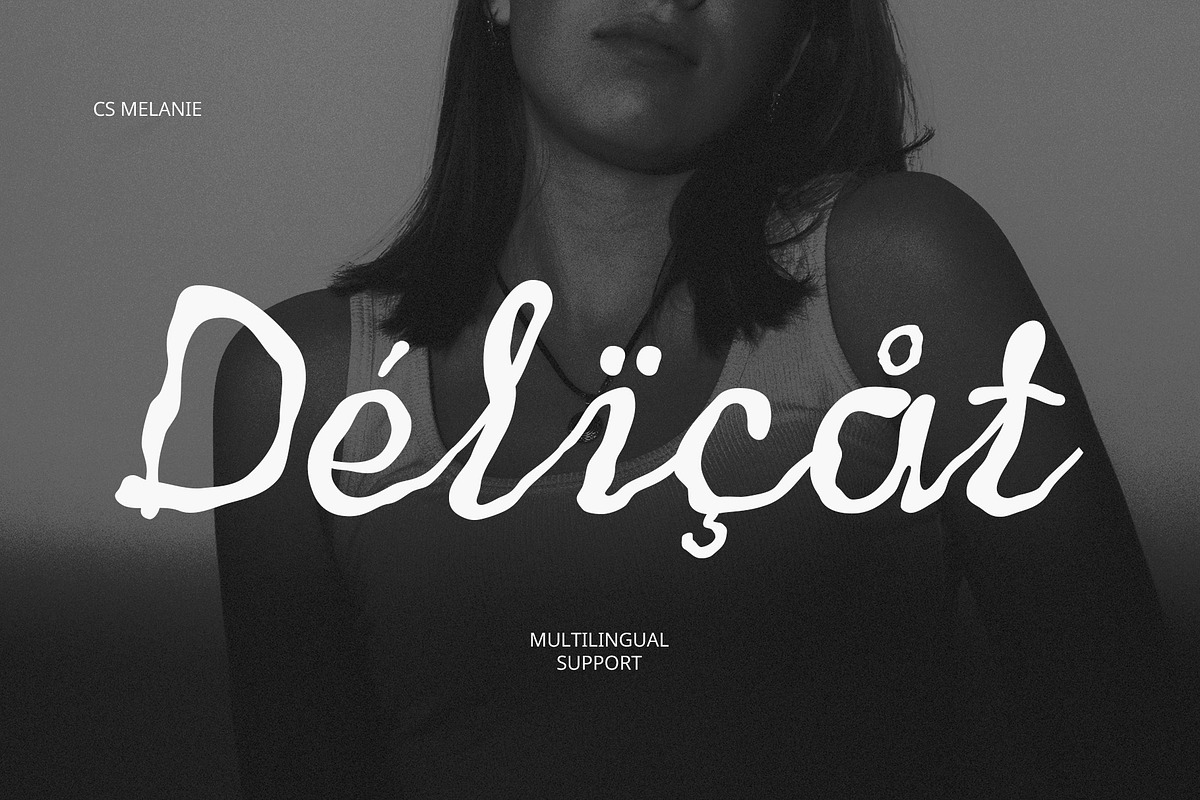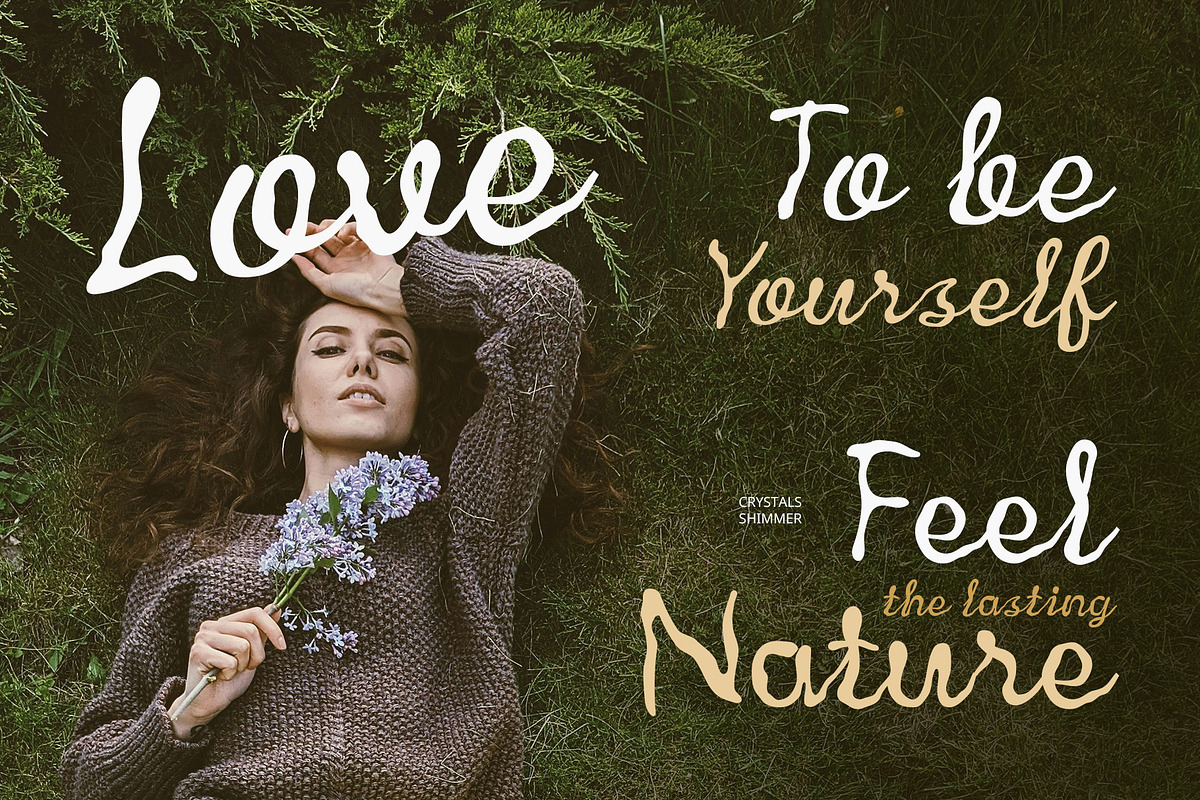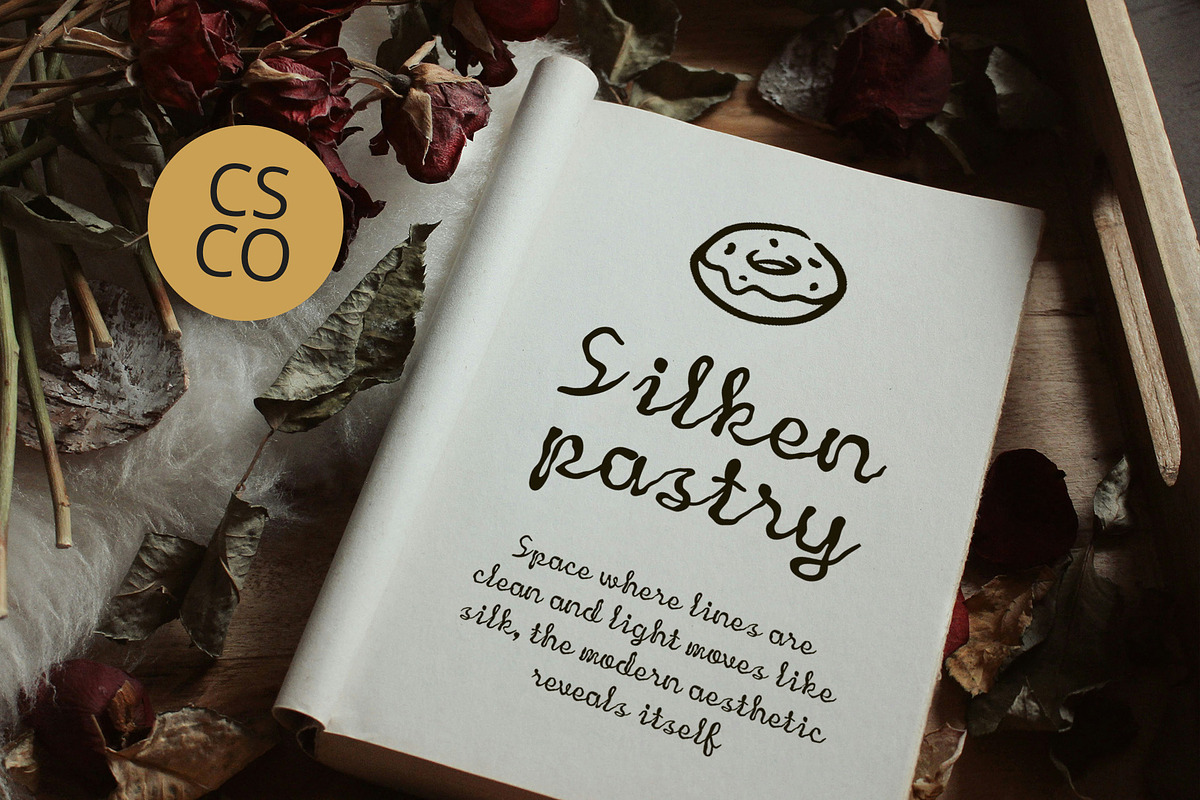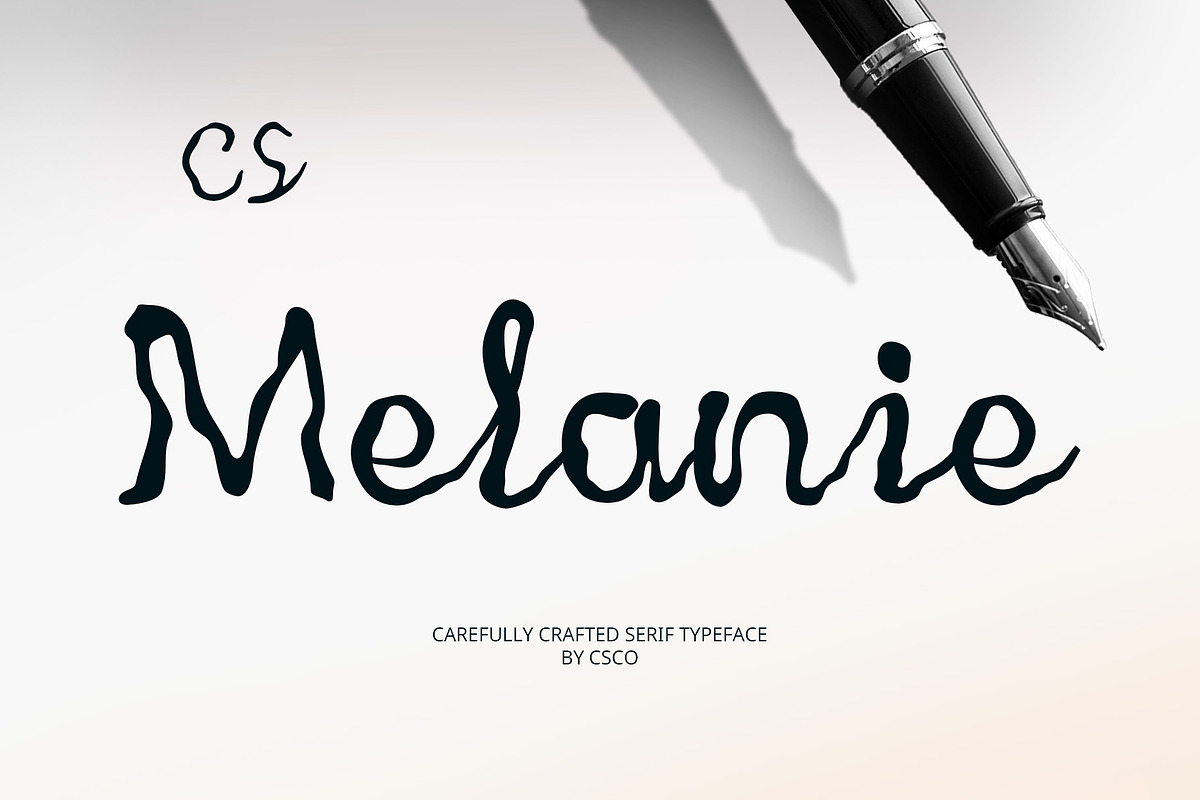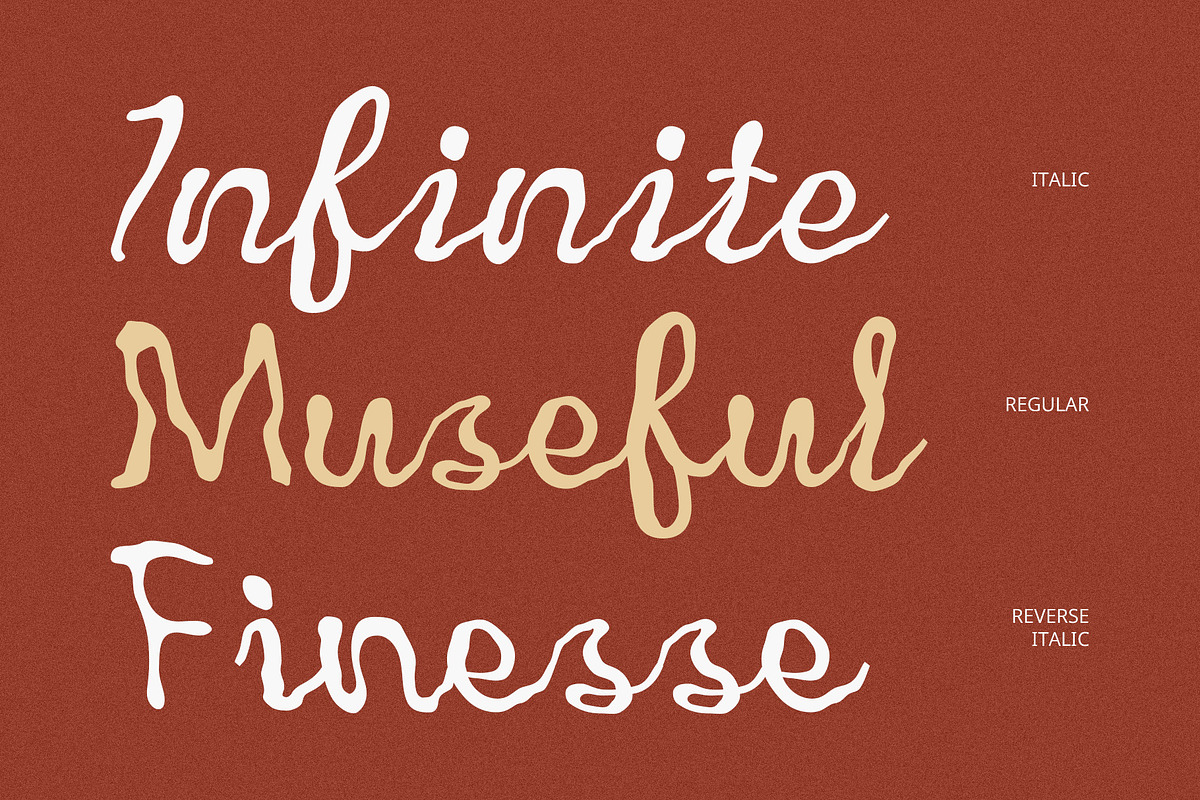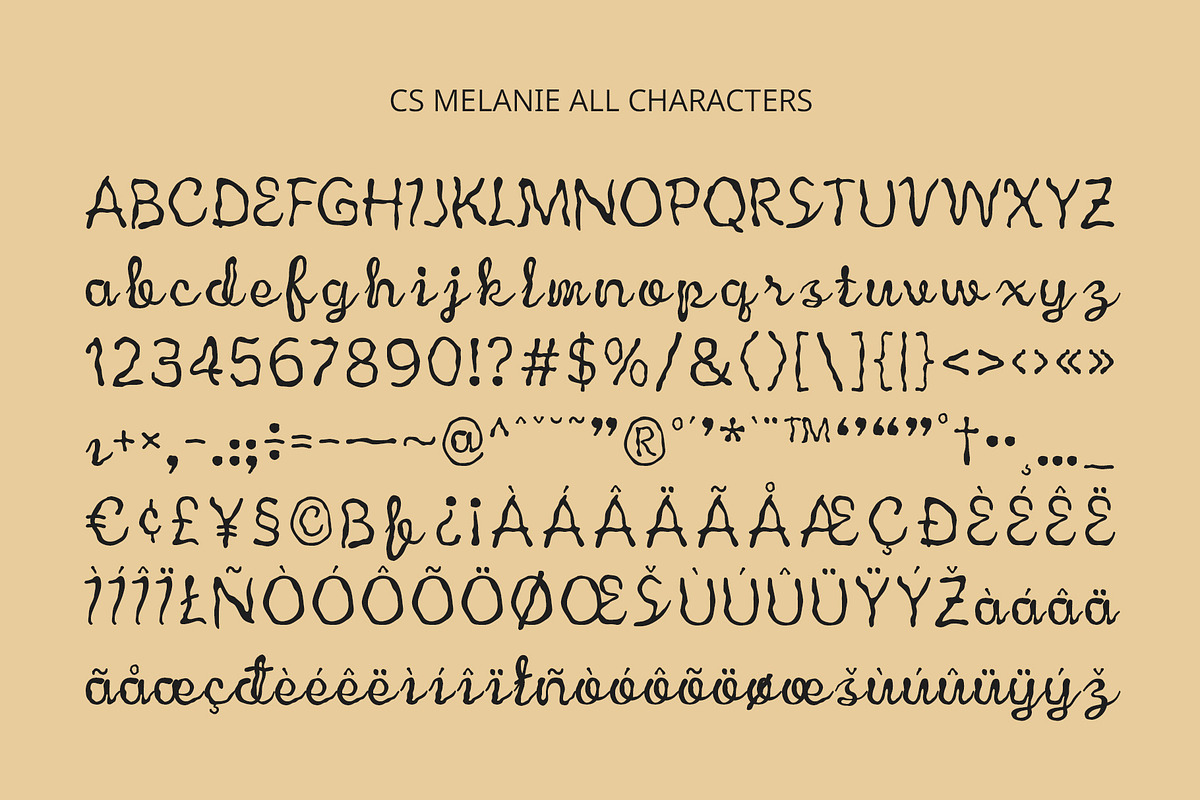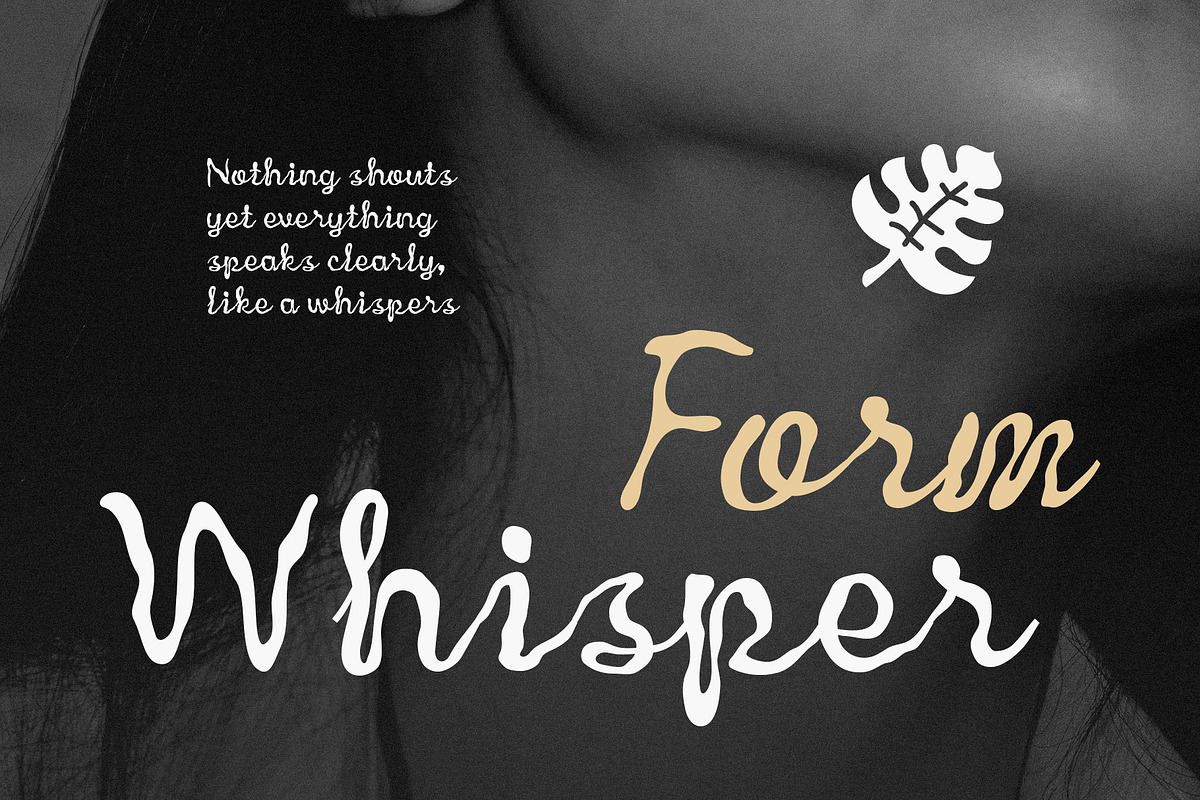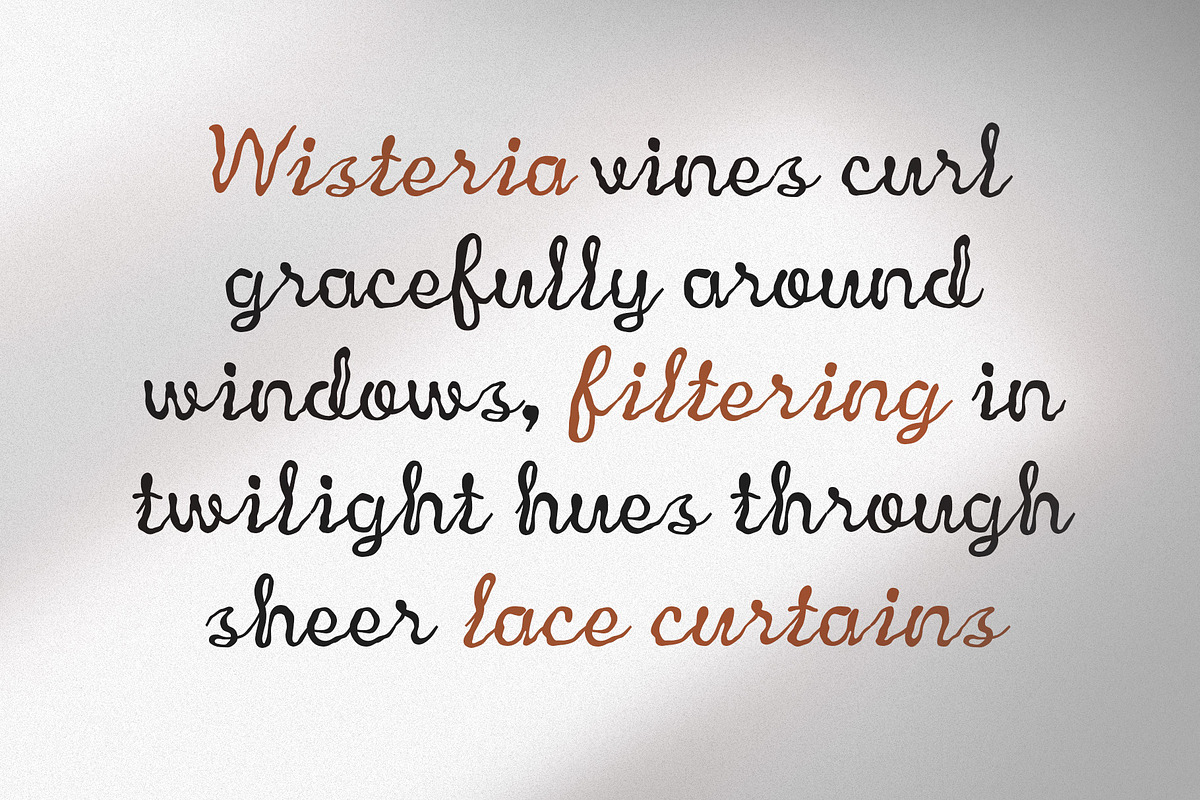
CS Melanie – Etchy Font
CS Melanie – Etchy Font: Organic Elegance with Handcrafted Charm
Expressive Handwritten Style CS Melanie is a display font with etchy, cursive, and handwritten forms that radiate organic beauty. Each letter flows naturally, combining delicate elegance with artistic texture, making every word feel personal and captivating.
Textured Strokes with Artistic Flair The textured, natural strokes of CS Melanie give it a handcrafted character that stands out in any design. Its cursive lines are carefully balanced to convey warmth, refinement, and a stylish, artistic aura without sacrificing readability. This artistic nuance enhances the font’s personality, adding depth and charm to creative projects while maintaining clarity and readability.
Perfect for Feminine and Creative Designs CS Melanie is ideal for beauty product branding, boutique logos, special invitations, social media graphics, or any project that seeks to highlight elegance, femininity, and creativity. Its expressive cursive forms provide a stylish and sophisticated impression, making each design feel warm, inviting, and uniquely personal.
Versatile for Stylish Applications From packaging to social media graphics, event materials, or editorial projects, CS Melanie adapts beautifully to diverse design needs. Its organic, artistic charm allows it to serve as both a focal display font and a complementary handwritten accent, offering designers flexibility with elegance.
- CS Melanie Regular
- CS Melanie Italic
- CS Melanie Reverse Italic